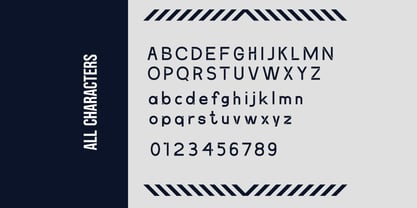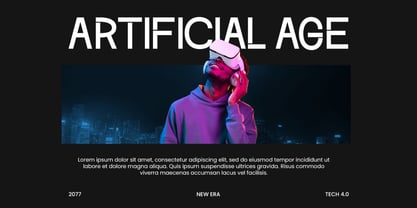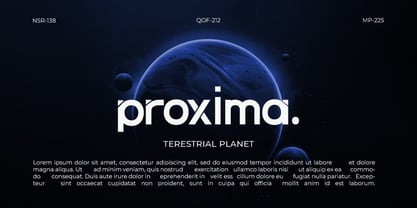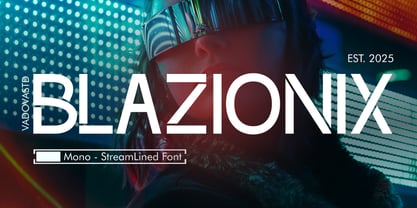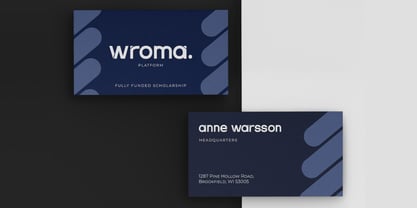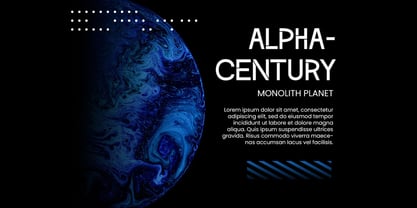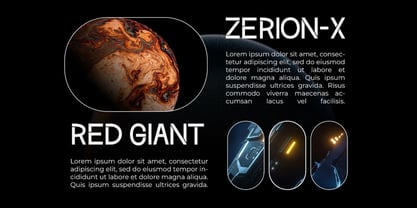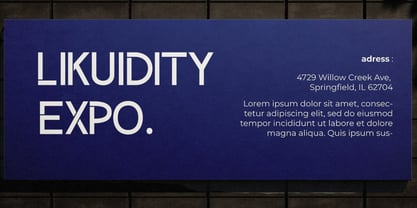
Blazionix
Blazionix is a monospaced futuristic font featuring a clean, streamlined design with glowing neon vibes. Perfectly suited for tech-based visuals, VR environments, gaming interfaces, and sci-fi branding, it delivers a bold yet minimalistic look. With precise geometry and crisp letterforms, Blazionix evokes a cutting-edge digital aesthetic, making it ideal for titles, UI/UX design, modern posters, and electronic branding. Embrace the future of typography with a font that speaks tech fluently. Suitable for tech startup, vr headset, digital display, cyber interface, sci-fi movie, ai branding, gaming UI, modern web, neon signage, futuristic banner, software promo, techwear brand, artificial intelligence, virtual world, glitch art, tech magazine, cyberpunk layout, esports identity, innovation pitch, metaverse project.